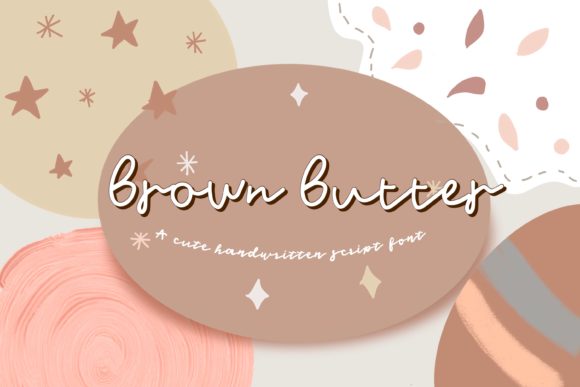
Journey into the Whimsical Realm of Brown Butter Font, Where Creativity Blossoms and Authenticity Shines
Welcome to the world of Brown Butter Font, an extraordinary script typeface that captures the essence of handwritten delight. Crafted with meticulous care by the innovative minds at The Gelato, this font is a symphony of charm, spontaneity, and captivating personality.
Brown Butter Font is more than just a collection of characters; it's an artistic playground where your creative visions come to life. Picture your words dancing across the page, infused with the warmth and charm of a handwritten note. This enchanting font effortlessly transforms even the mundane into captivating works of art.
Discover the endless possibilities that await you with Brown Butter Font. Unleash your inner storyteller and weave captivating tales that transport your readers to magical realms. Create whimsical invitations that spark curiosity and excitement. Design eye-catching logos that leave a lasting impression. Embrace the power of handwritten typography to make your brand stand out from the crowd.
With Brown Butter Font as your creative companion, you'll embark on a journey of self-expression and visual delight. Embrace the quirky charm of this font and watch as your designs blossom into masterpieces that resonate with authenticity and flair. So, dive into the world of Brown Butter Font and let your creativity run wild!